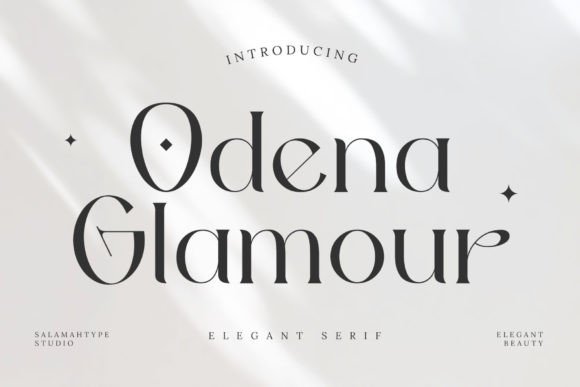
Journey into the realm of elegance and sophistication with Odena Glamour, a serif font that captivates the senses and elevates your designs to new heights.
Meet Odena Glamour, a strikingly beautiful serif font that radiates grace and poise. This font family is a true visual masterpiece, meticulously crafted to evoke an aura of elegance and sophistication in every letterform. Whether you're a seasoned designer or just starting your creative journey, Odena Glamour is the perfect font to elevate your projects and leave a lasting impression on your audience.
Odena Glamour's charm lies in its graceful curves, delicate serifs, and timeless aesthetic. Each character is a work of art, designed with precision and attention to detail. This font exudes an air of luxury and refinement, making it the ideal choice for branding projects, logos, social media posts, advertisements, product packaging, wedding invitations, labels, photography, and beyond.
With Odena Glamour, your designs will command attention and leave a lasting impression. This font has the power to transform ordinary words into captivating statements, adding a touch of magic to your creative endeavors. Imagine your logo adorned with Odena Glamour's elegant curves, or your social media posts radiating with its timeless beauty. Every project you undertake will be infused with an aura of sophistication and charm.
Odena Glamour is more than just a font; it's an investment in your creativity. This versatile font family is PUA encoded, granting you effortless access to all the glyphs and ligatures you need to unleash your imagination. Whether you're a seasoned designer or just starting out, Odena Glamour is the perfect tool to elevate your work and unlock your creative potential.
As you embark on your creative journey with Odena Glamour, you'll discover a world of endless possibilities. Let this font guide you to new heights of creativity and inspire you to create designs that captivate and enchant. Your projects will radiate with an elegance that is both timeless and unforgettable.
So why wait? Embrace the allure of Odena Glamour today and unlock the door to a world of creative possibilities. Let this font be your muse, your guiding light as you craft designs that resonate with beauty and sophistication. Odena Glamour is more than just a font; it's an experience that will transform your creative vision.